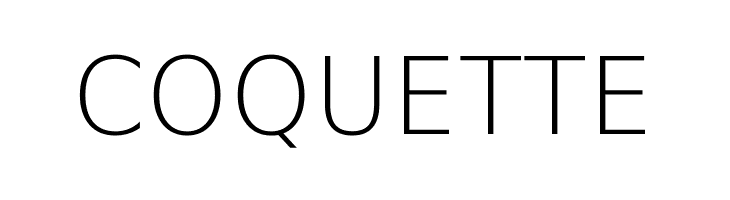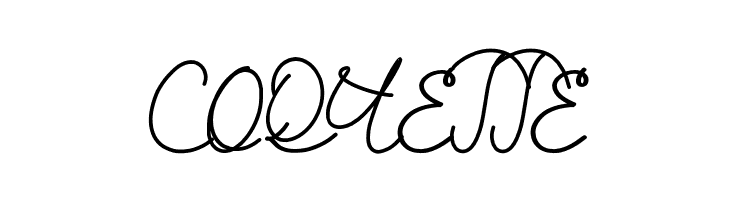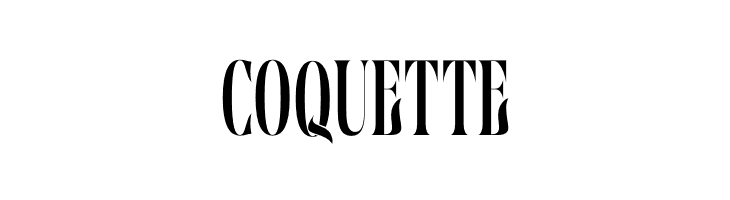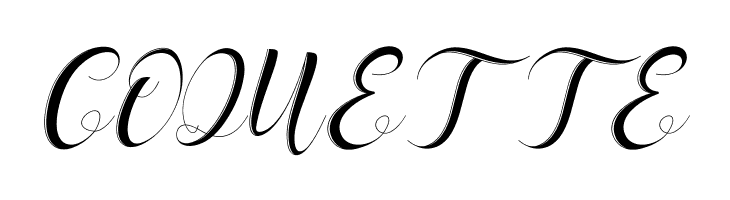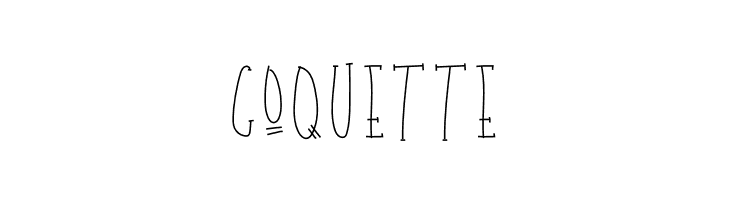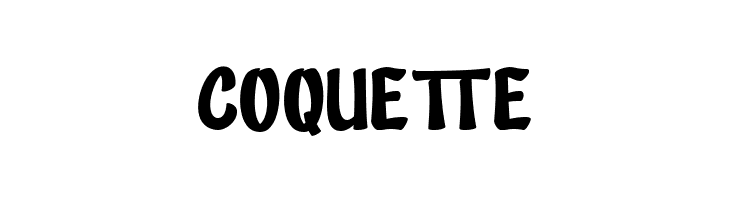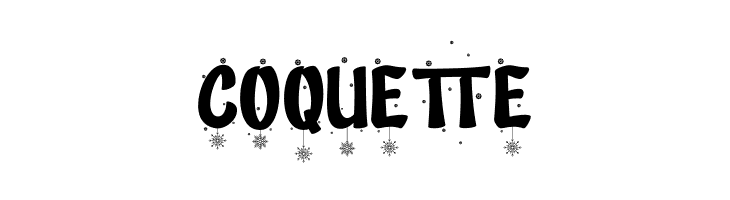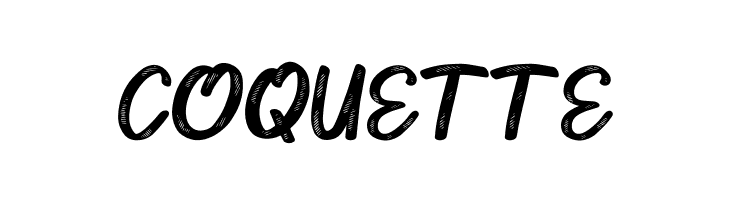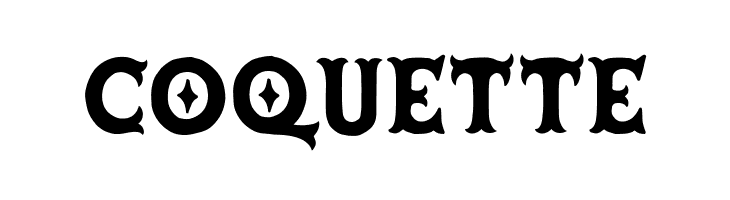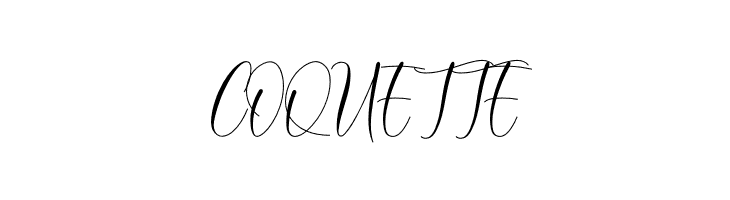
A classic serif font with elegant, refined letterforms and medium contrast.
A playful, handwritten font with a casual and whimsical style.
A playful, bold handwritten font with a smooth, rounded style.
A whimsical Halloween-themed design with playful illustrations.
A bold, three-dimensional font with a retro, geometric style.
An elegant, light oblique font with sleek, elongated characters.
A bold, geometric font with strong, angular lines and a blocky appearance.
A decorative serif font with curled serifs and rounded edges, blending classic and modern styles.
A modern sans-serif font with clean lines and a balanced structure.
A clean, modern sans-serif font with consistent stroke width and geometric shapes.
A gothic, dramatic font with sharp serifs and elongated strokes.
A bold, geometric font with a retro arcade style and thick outlines.
A bold, geometric font with an industrial and modern feel.
A bold, italic font with sharp, angular edges and a dynamic, modern style.
A modern, condensed, semi-light italic font with sleek and dynamic styling.
A modern, semi-bold italic sans-serif font with medium contrast and normal spacing.
A playful, outlined font with rounded, bubbly characters.